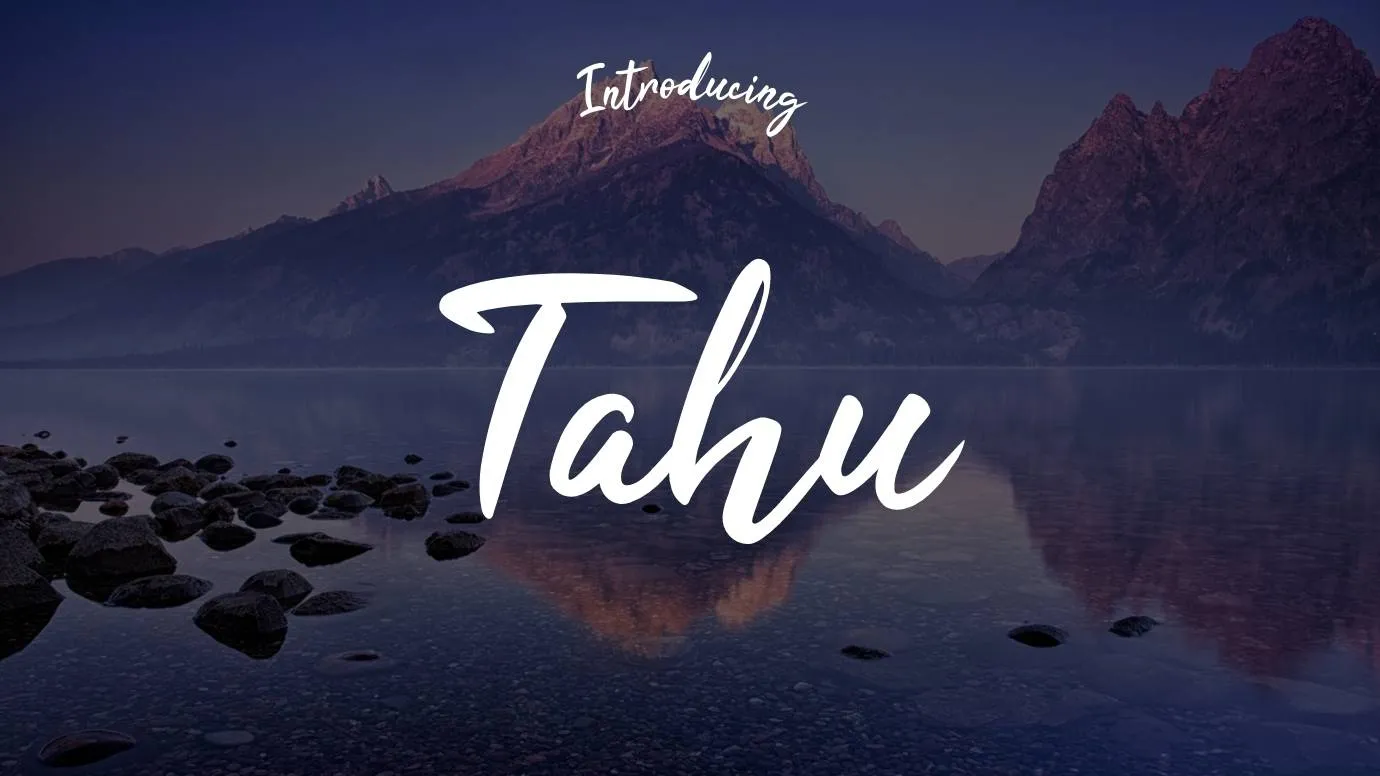
Font Introduction
Tahu Font Family is a script-style texture that has a clean look. This cozy texture was established by a famous designer known as Khurasan. This texture comes with unique features that are best for personal-type designs. This typography is classified as a script category of fonts. It has stylistic alternates that are best for use in different text design purposes like paragraphs and articles. Also, this family supports a lot of international-level languages.
Details of Font
Name | Tahu Font |
Type | Script |
Designer | Syaf Rizal |
Foundry | Khurasan |
Features of Tahu Font
- You can use this interesting font for creating different shops name designs, hotel name designs, and restaurant name designs.
- You can pick this font for creating decorative card designs such as wedding card designs, gift card designs, and greeting card designs.
- This font is suitable for magazine cover designs, storybook cover designs, pamphlet designs, and news headlines designs.
- It is perfect to use for product packaging, mug designs, archives designs, art designs, website designs, and so on.
What is the kind of Tahu Font?
This is a basic script font that has bold italic characters. It was designed by Syaf Rizal (Khurasan) for the first time in the font family.